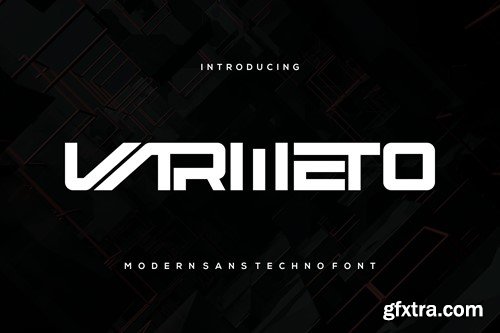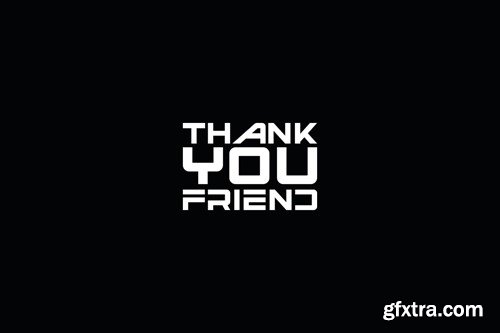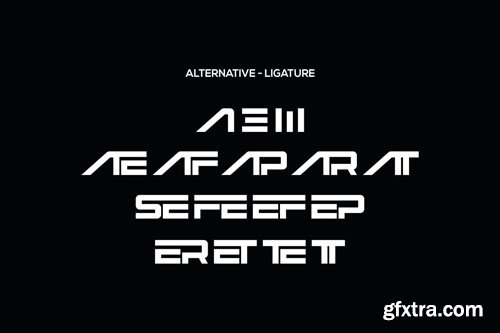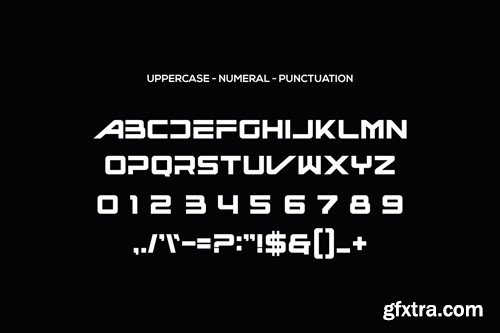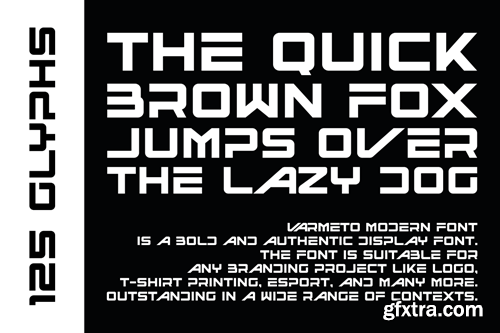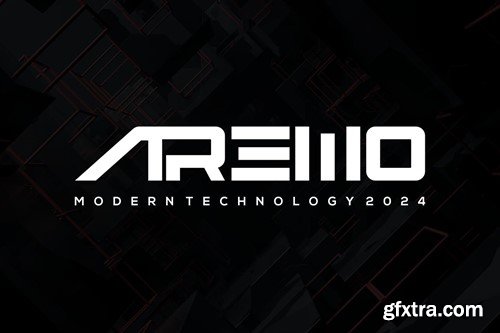
Varmeto Font
Introducing our new product Varmeto Font - Modern Font is a bold and authentic display font. The font is suitable for any branding project like logo, esport, and many more. outstanding in a wide range of contexts. availlable